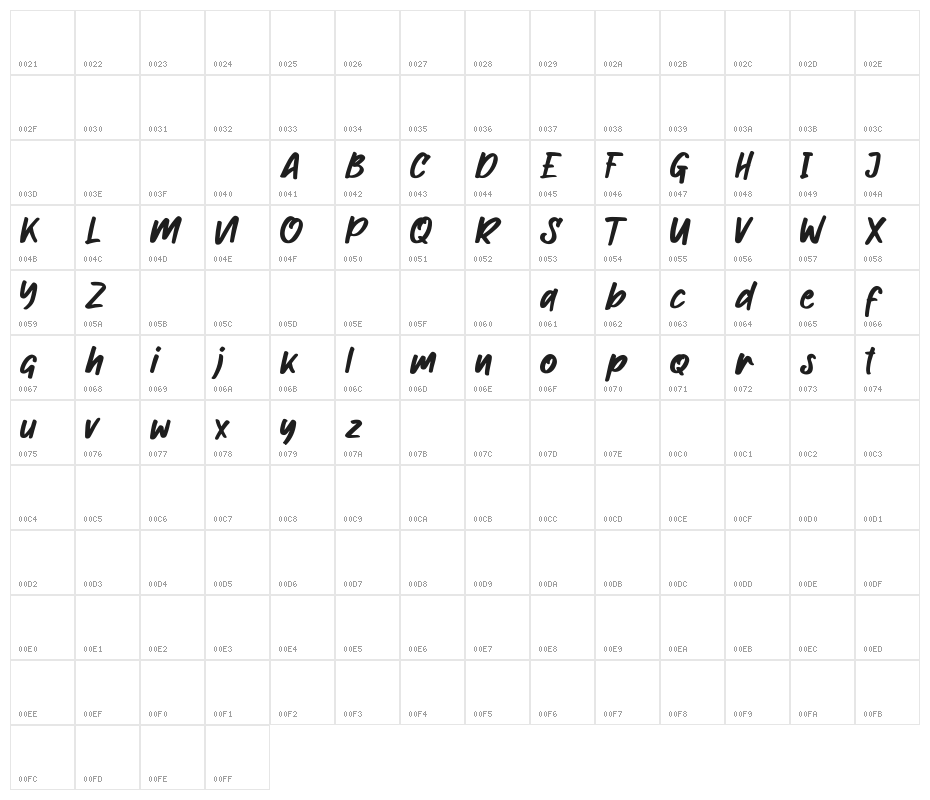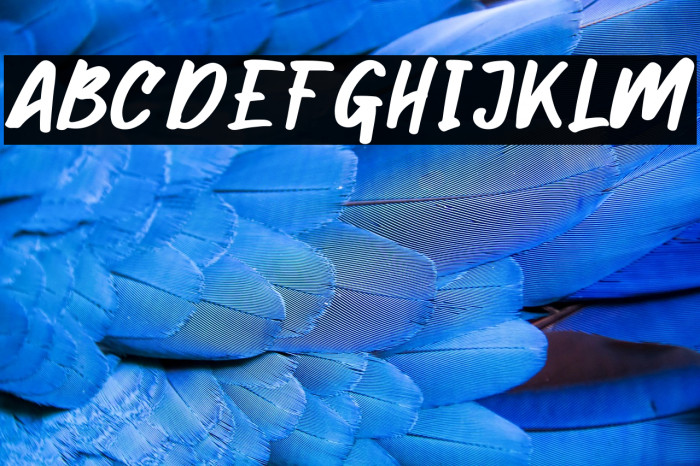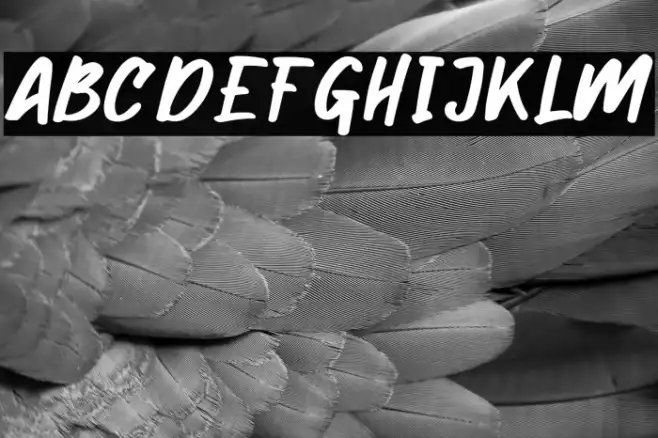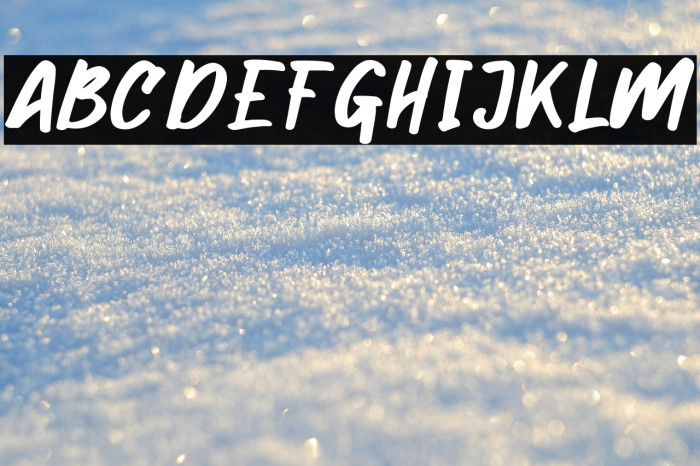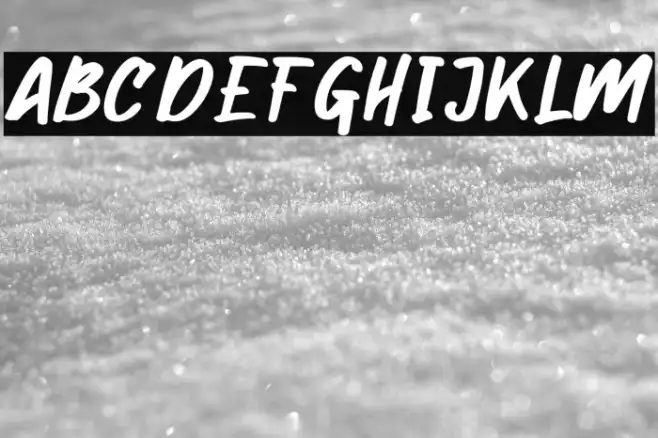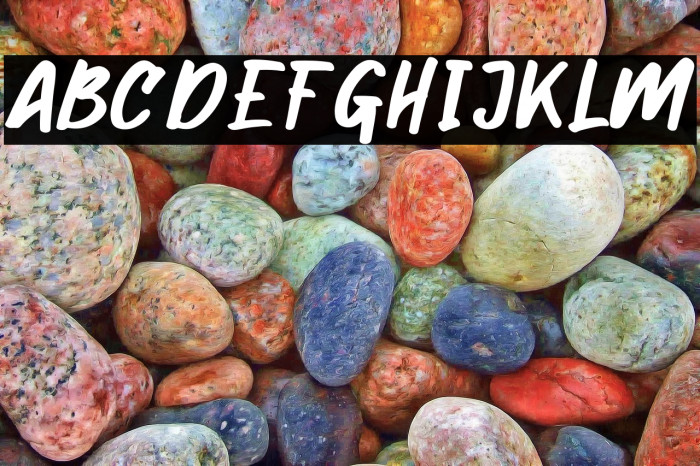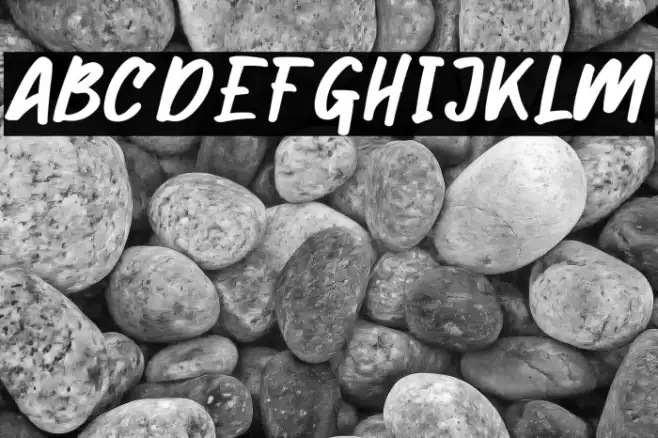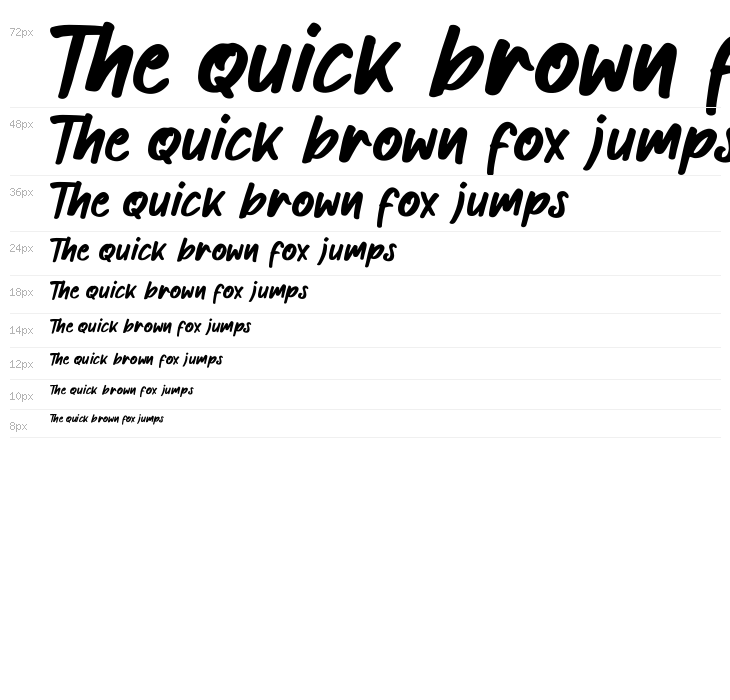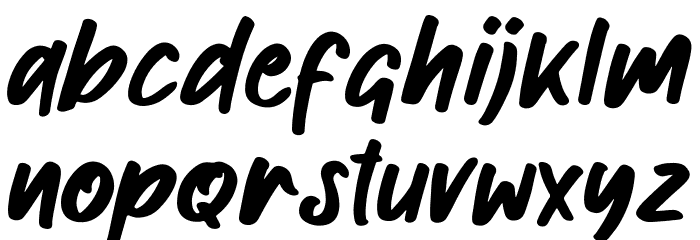
Buckles Font
Buckles Description
This font features a bold and dynamic script style with a handwritten appearance. The letters are fluid and connected, giving a sense of movement and energy. The strokes are thick and consistent, providing a strong visual impact. The uppercase letters are slightly larger and more pronounced, while the lowercase letters maintain a cohesive flow. This font exudes a casual yet confident vibe, making it suitable for projects that require a personal touch. The overall design is modern with a hint of playfulness, making it versatile for various creative applications.